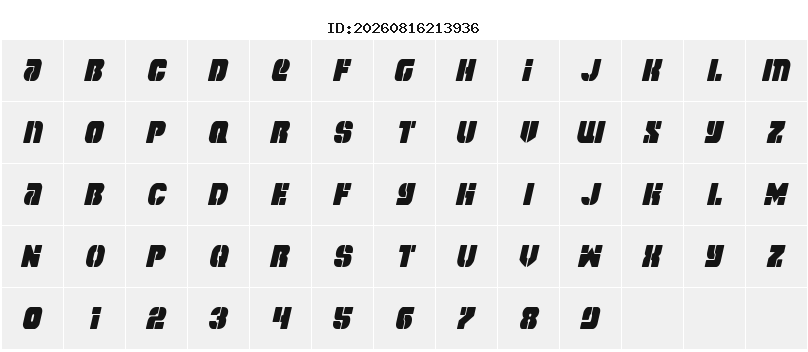
Space Cruiser Condensed Italic Preview
• Font Name: Space Cruiser Condensed Italic
• Font Style: Condensed Italic
• Full Font Name: Space Cruiser Condensed Italic
About Space Cruiser Condensed Italic.ttf
Space Cruiser Condensed Italic.ttf is a modern, elegant sans-serif font designed for ultimate readability and visual harmony. Perfect for branding, headlines, web design, and print materials.